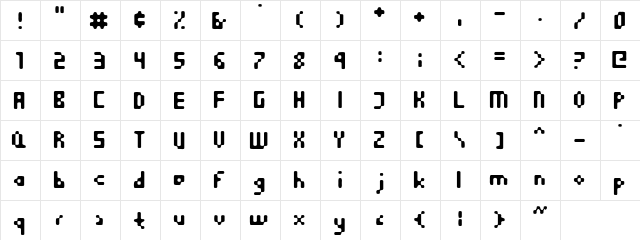
Equilibrium Regular
Design Context for Equilibrium Typeface
Equilibrium is a composed and adaptable typeface that performs quietly and consistently across a wide range of design contexts.
Pro Tip: Pair Equilibrium with a font of contrasting weight or personality to build a more expressive typographic hierarchy.